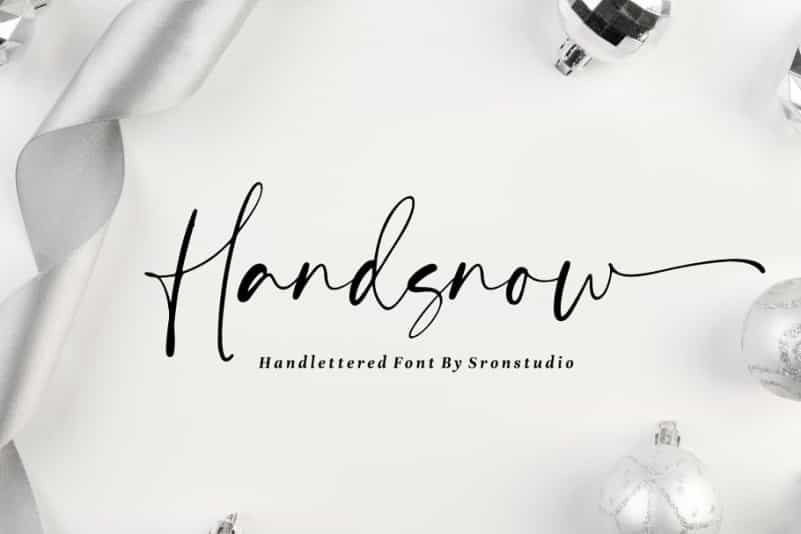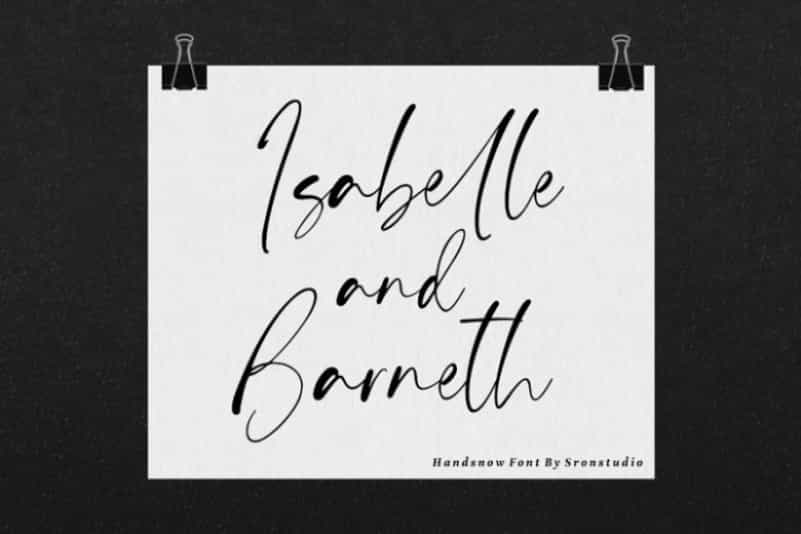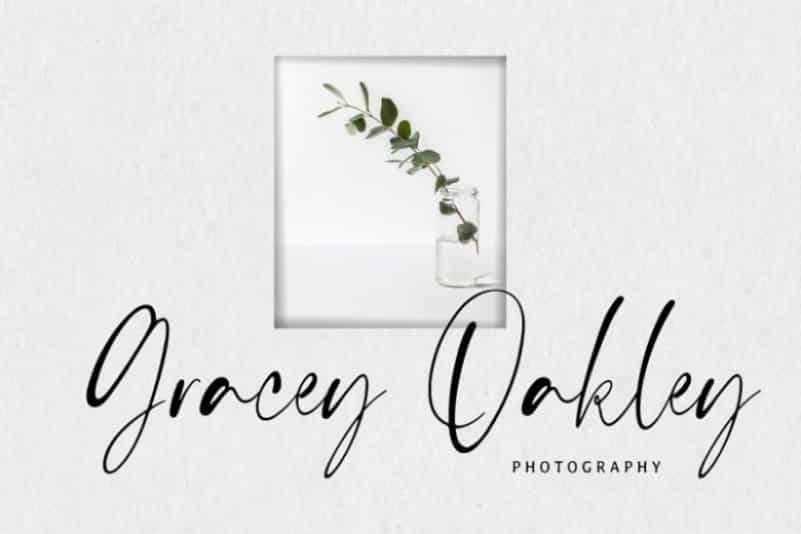
Handsnow Font is a fresh new script with a modern handwritten style, many additional ornaments and a swirling baseline! It looks very good on invitation such as greeting cards, branding materials, business cards, quotes, posters, and many others.